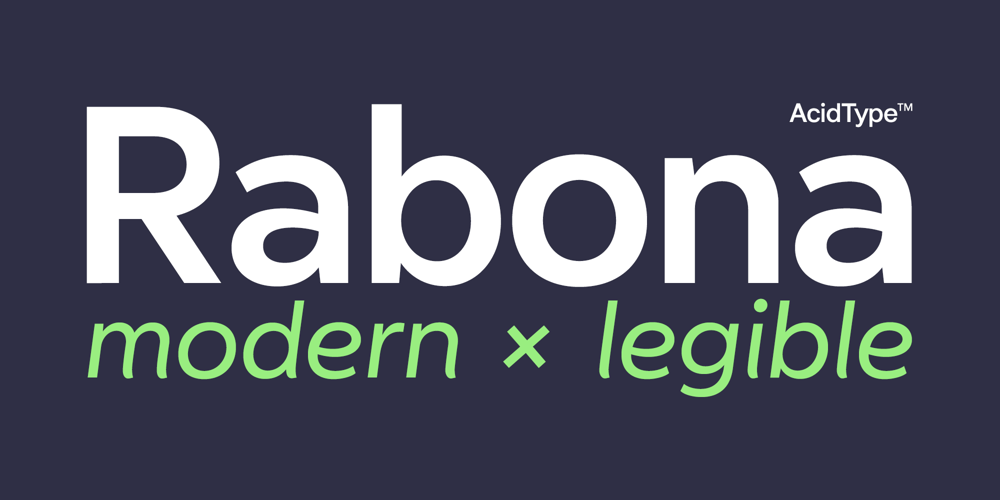
Rabona
Rabona font
Rabona Font Family was designed by Zac Hallgarten and published by AcidType. Rabona contains 12 styles and family package options. Rabona is a typeface for designers; easy to implement, clean and utilisable.A quintessentially modern geometric san-serif, filtered through a gently humanist lens.